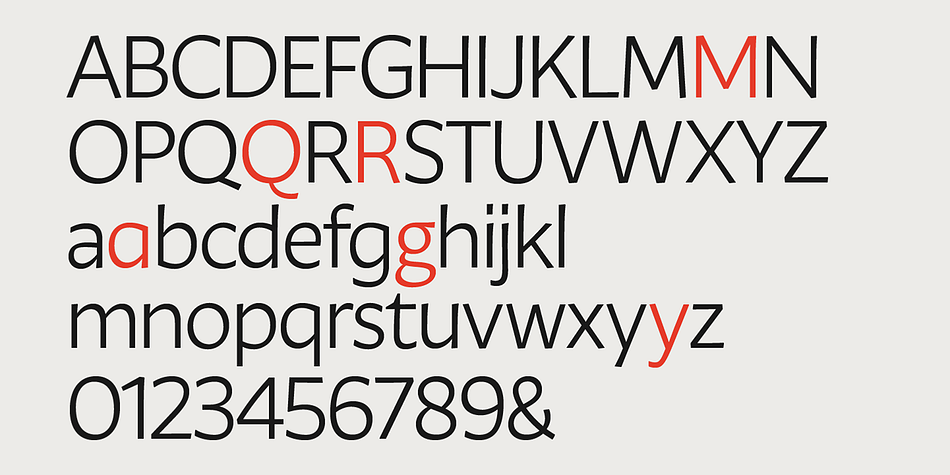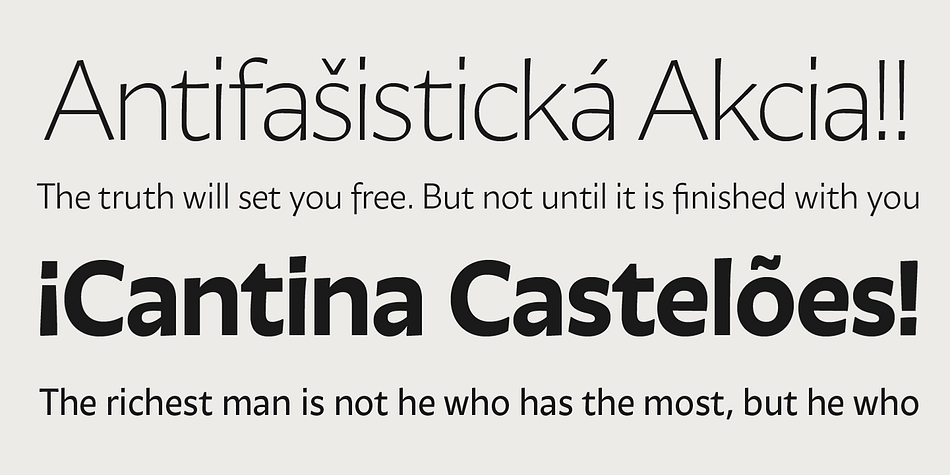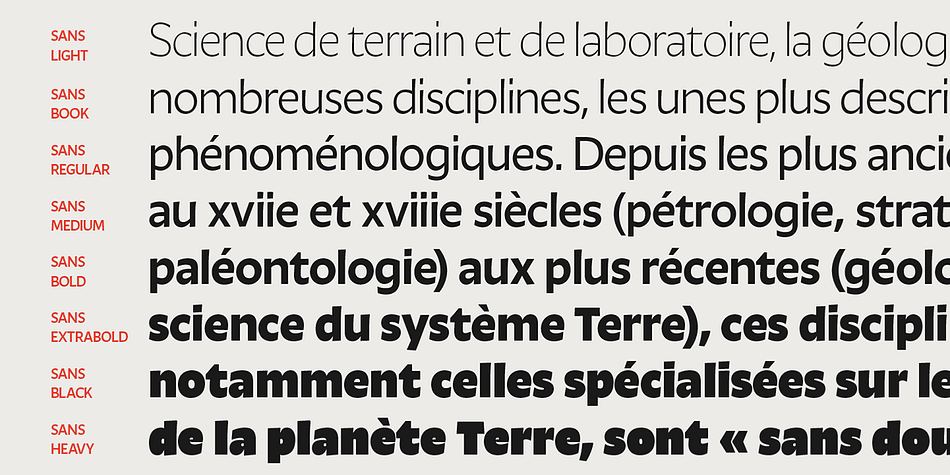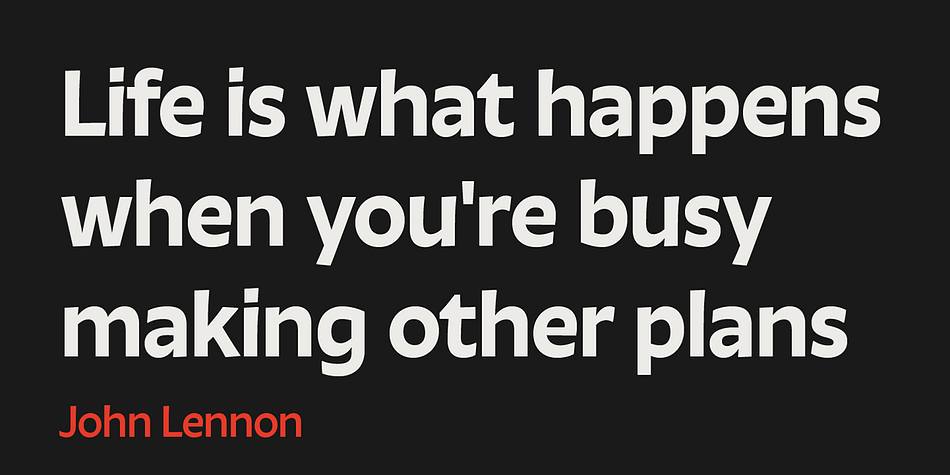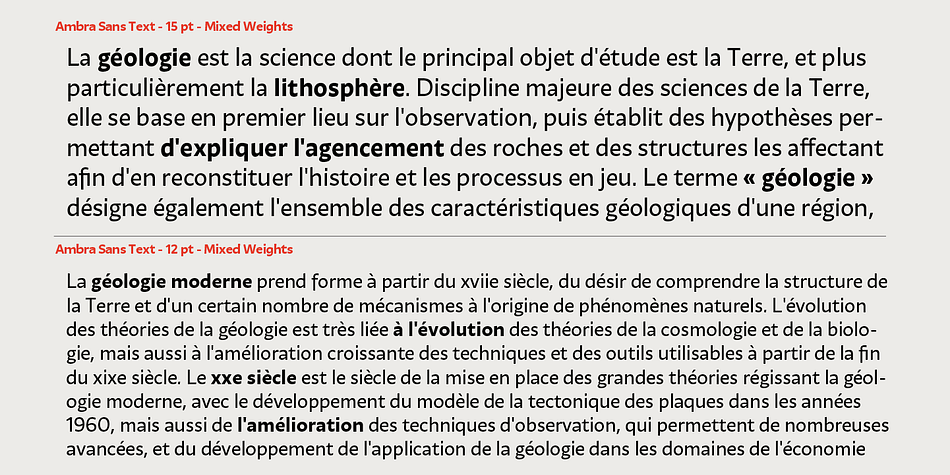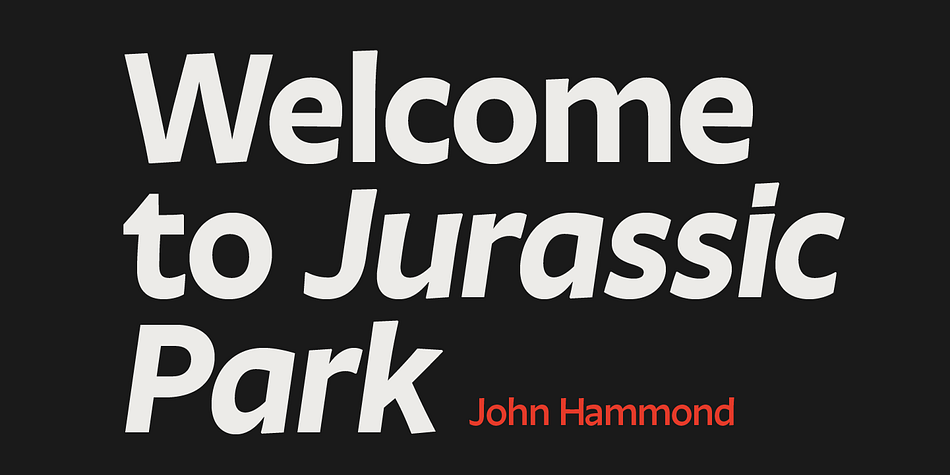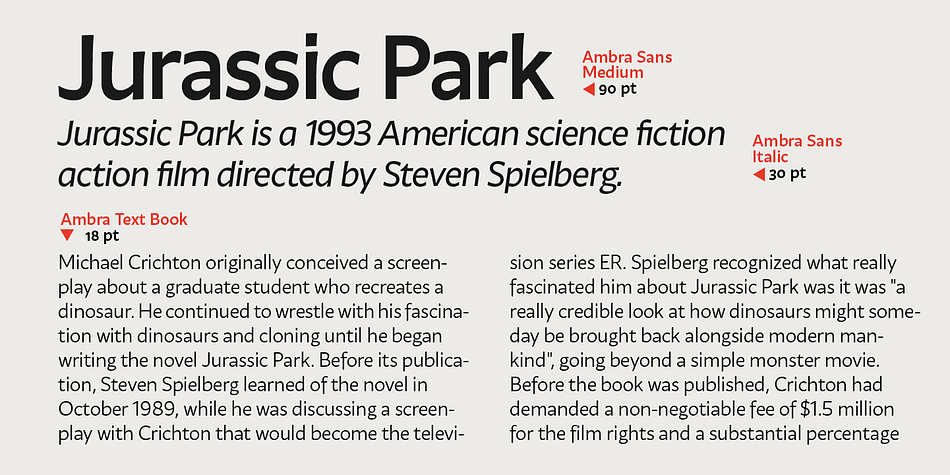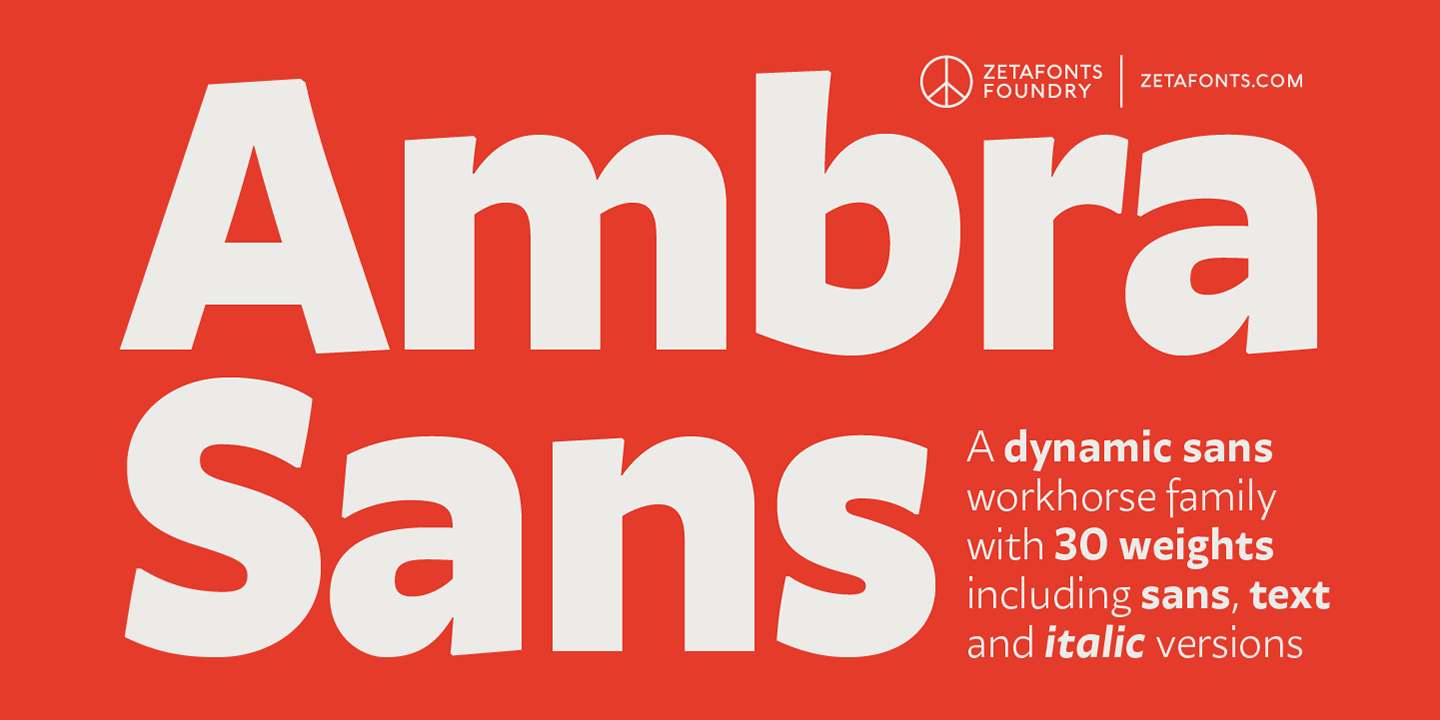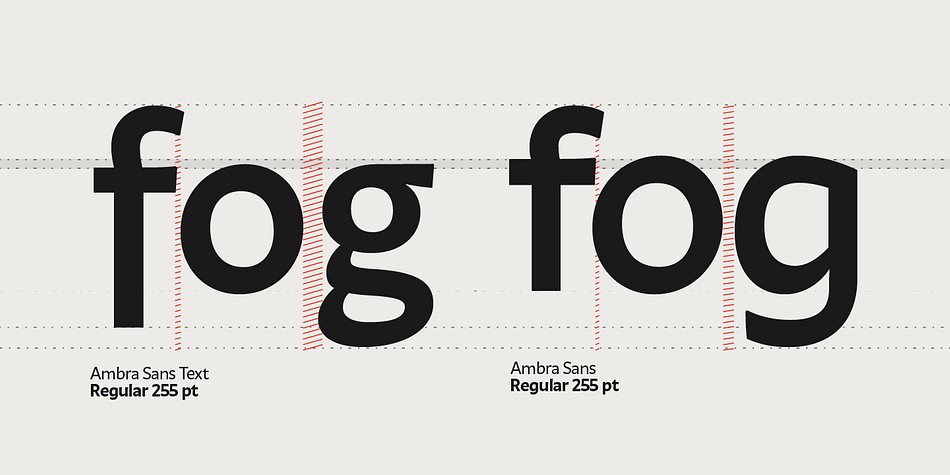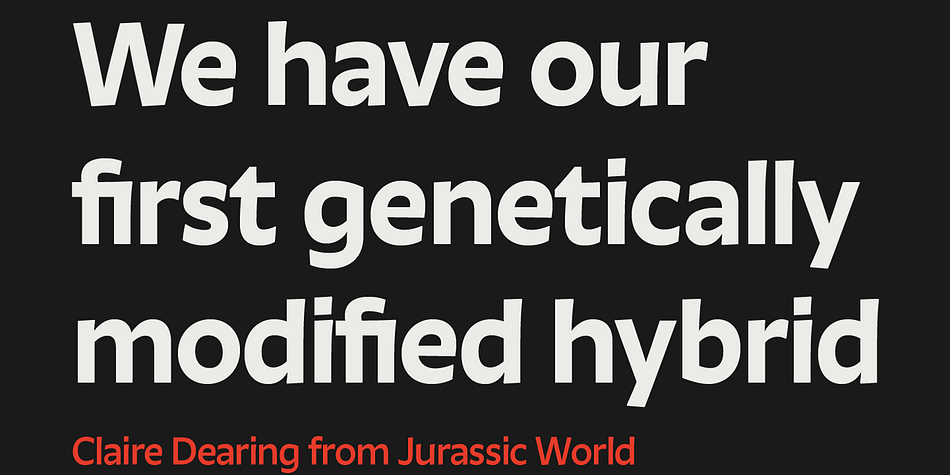
Ambra Sans
Designed by Francesco Canovaro, Andrea Tartarelli and Cosimo Lorenzo Pancini, Ambra Sans is a sans serif font family. This typeface has thirty-one styles and was published by Zetafonts.
Designed by Cosimo Lorenzo Pancini with Francesco Canovaro as a development and reinvention of Tarif by Andrea Tartarelli, Ambra Sans is a humanist sans typeface family, drawn around a lively, expressive skeleton but developed with a contemporary, post-digital sensibility that implies low contrast and tall x-height.
In designing Ambra Sans, the authors wanted to research the elusive natural signature of handmade humanist letter shapes, in the effort of preserving it while still developing all the capabilities of type as a technical tool in the digital age. Like a frail insect preserved in amber, humanist design is the “ghost in the machine” of this font, that aims at seducing the viewers with its soft, welcoming text flow, firmly opposing the rigid, formal tone of most sans serif fonts. Born to provide a useful tool to graphic designers with branding and editorial needs,
Ambra Sans develops around two subfamilies with slight but fundamental differences. The display family offers a taller x-height, optimizing readability and spacing in headings and display use, while offering a single story lowercase g to provide more consistent branding usage. The text family, on the other side, goes for a smaller x-height to give more traditional proportion to the text and removes the slight tapering in the stems to provide better rendering on screen in small formats.
Both subfamilies of Ambra Sans develop around a wide range of seven weights with corresponding true italics, with Ambra Display sporting an extra heavy weight for maximum versatility. In total the family counts 30 fonts, each with over 600 glyphs for a wide language coverage.
Open type features and glyph alternates further enrich the usage possibility of this typeface that wants to offer contemporary designer an alternative, unexpectedly human approach to contemporary sans type, softly preserving the spirit of handmade calligraphy while encasing its frail nature in a transparent, strong and powerful design language.
Designers Francesco Canovaro, Andrea Tartarelli, Cosimo Lorenzo Pancini